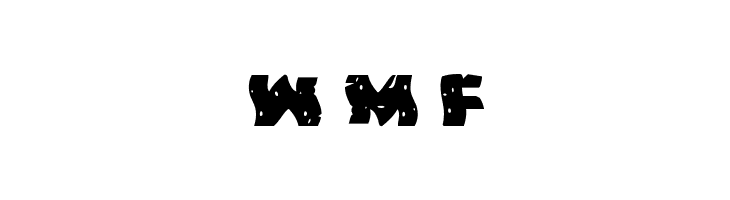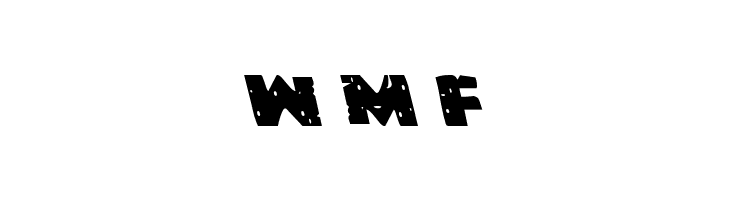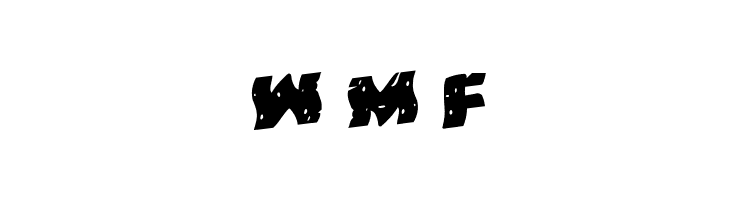
( Fonts by Bumbayo Font Fabrik - bumbayo.blogspot.com )
A traditional Blackletter font with ornate, angular designs and historical elegance.
Ornate, pictorial font with devil and mythological illustrations.
A bold, shadowed font with a three-dimensional effect, perfect for striking designs.
( Cotbada Studio - Isfani - creativemarket.com/Cotbada_studio )
An elegant, flowing cursive font with intricate connections and graceful curves.
( Cotbada Studio - Isfani - creativemarket.com/Cotbada_studio )
An elegant, cursive italic font with a flowing, handwritten style.
( Cotbada Studio - Isfani - creativemarket.com/Cotbada_studio )
A modern handwritten font with elegant, fluid strokes and a cursive style.
( Fonts by Steve Ferrera )
A bold, geometric display font with octagonal emblem motifs and strong contrast.
A bold, dripping font with a horror-themed, decorative style.
A bold, playful font with a three-dimensional outline and rounded, slightly italicized characters.
( aldedesign - Alde Saputro - creativemarket.com/aldedesign?u=aldedesign )
A graceful and elegant script font with flowing, cursive lines.
( Pixel Kitchen )
A decorative font with characters formed by diamond shapes, offering a modern and artistic look.
A whimsical and playful script font with flowing, interconnected letters.
( Letterhend Studio - Hendry Juanda - creativemarket.com/letterhend )
A dynamic and fluid script font with elegant, flowing letterforms.
( Amar Lettering - creativemarket.com/Amarlettering )
An elegant script font with flowing, cursive letters and a sophisticated style.
A sophisticated script font with elegant, flowing cursive letters.
A charming and elegant script font with fluid, graceful strokes.
( Figuree Studio - Icep Fadhil )
A bold, brush-style font with dynamic, hand-drawn strokes.
( Jeff Bensch - jbensch.deviantart.com )
A playful, dice-themed decorative font with bold, high-contrast characters.
( Fonts by Chank Co. - www.chank.com )
An ornate, vintage-style font with intricate flourishes and bold, decorative elements.
( Mr Ginanto )
A playful, handwritten font with rounded edges and a casual style.
( TwoNineFive - Maximillian Limpo )
A bold, geometric font with a futuristic and mechanical design.
( Chequered Ink - chequered.ink/ )
A playful, hand-drawn font with bold, irregular letterforms.
( deFharo - Fernando Haro - defharo.com )
A bold, serif font with strong, uniform strokes and pronounced serifs.
( deFharo - Fernando Haro - defharo.com )
A modern serif font with clean lines and balanced proportions.
( deFharo - Fernando Haro - defharo.com )
A bold slab serif font with strong, block-like serifs and consistent stroke width.
( deFharo - Fernando Haro - defharo.com )
A clean and elegant serif font with thin, uniform strokes and subtle curves.
( TwoNineFive - Maximillian Limpo )
A bold, geometric font with a futuristic, digital aesthetic.
( TwoNineFive - Maximillian Limpo )
A futuristic, geometric font with sharp, angular characters.
A bold, pixelated font with a modern, tech-inspired design.
( Darrell Flood )
A bold, geometric font with a futuristic, digital aesthetic.